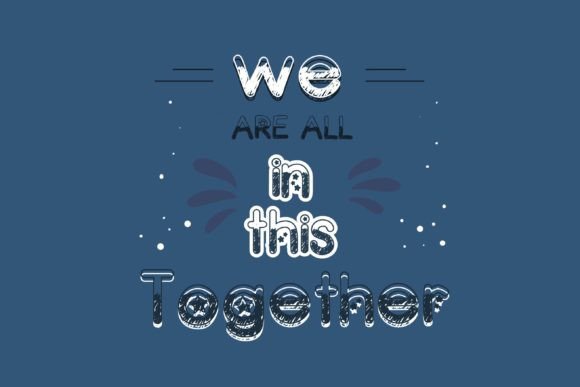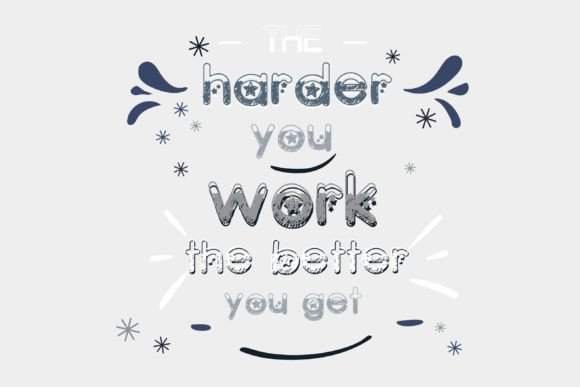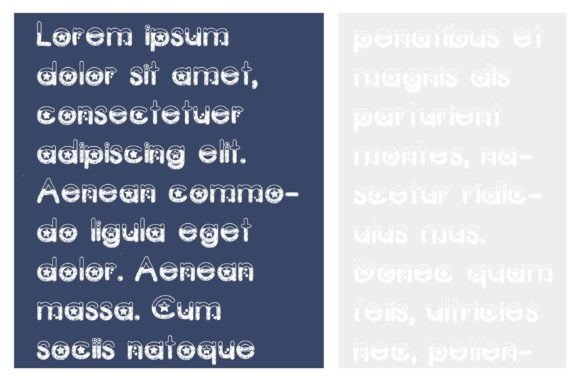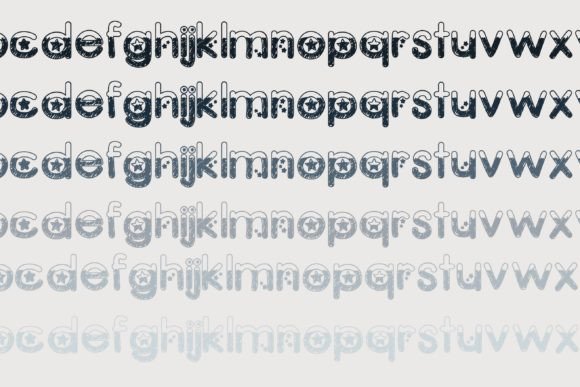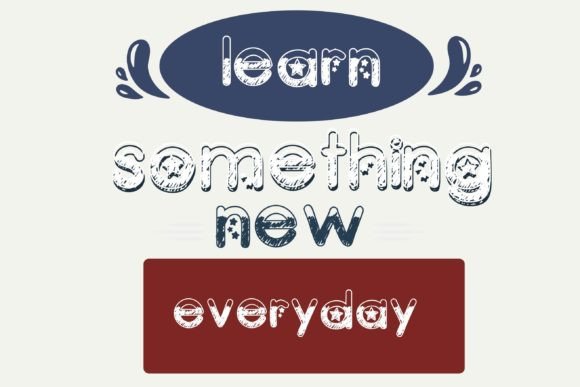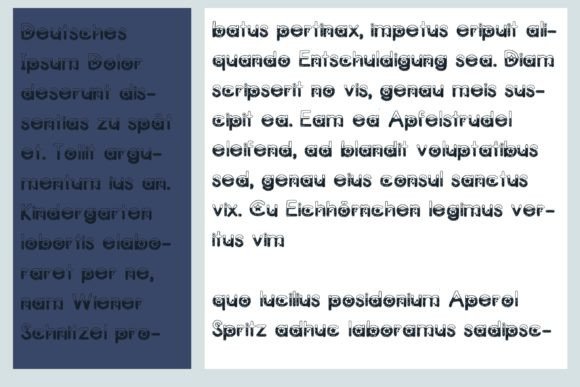
Introduction to Scribble Stars Font Font
Fonts play a crucial role in design, and the Scribble Stars Font font is a typeface that brings both character and versatility to any project. Whether you’re working on a branding project, a website, or a print design, the Scribble Stars Font font offers a unique style that can elevate your work.
Each letter is uniquely designed with hand-drawn doodle elements adding a fun and creative touch to your text.
What makes this font truly special is the delightful star decorations scattered throughout, adding a touch of magic and wonder to your words Whether youβre creating invitations or greeting cards, or simply want to add a touch of whimsy to your designs, Scribble Stars is sure to bring a smile to anyone who sees it.
Key Features of Scribble Stars Font Font
Why Choose Scribble Stars Font Font?
The Scribble Stars Font font is more than just a typeface β it’s a design tool that helps you communicate your message with style and clarity. Its unique character set and versatile design make it suitable for a wide range of applications, from elegant invitations to bold headlines.
With its carefully crafted letterforms and balanced proportions, the Scribble Stars Font font ensures readability and visual appeal across all mediums.
What makes Scribble Stars Font font special?
The Scribble Stars Font font stands out with its unique design, exceptional readability, and versatility across various design applications.